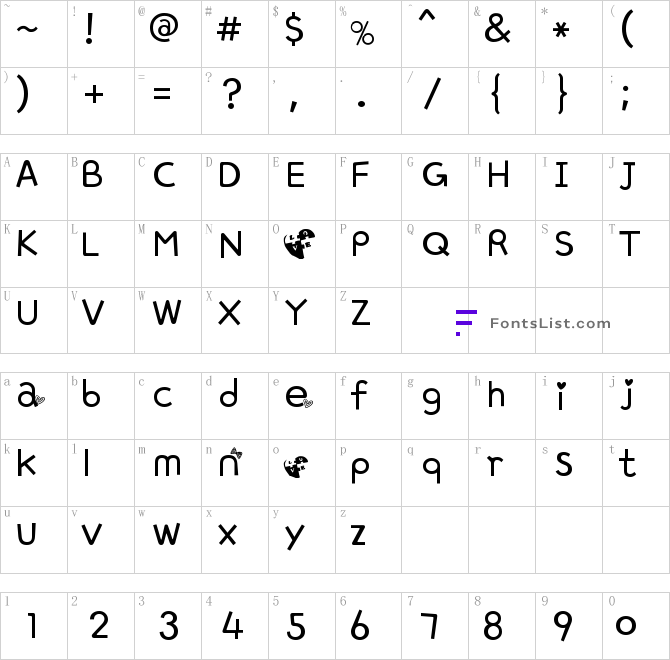
- Font Name:AC L O V E
AC-L-O-V-E.ttf is a very beautiful artistic font, AC-L-O-V-E.ttf is widely used in the design and printing of various books and pictures,AC-L-O-V-E.ttf has a strong visual impact,AC-L-O-V-E.ttf is a commonly used font in newspapers, magazines and books, and is used in posters, e-commerce Poster design, store design, logo design, font design and other fields.AC-L-O-V-E.